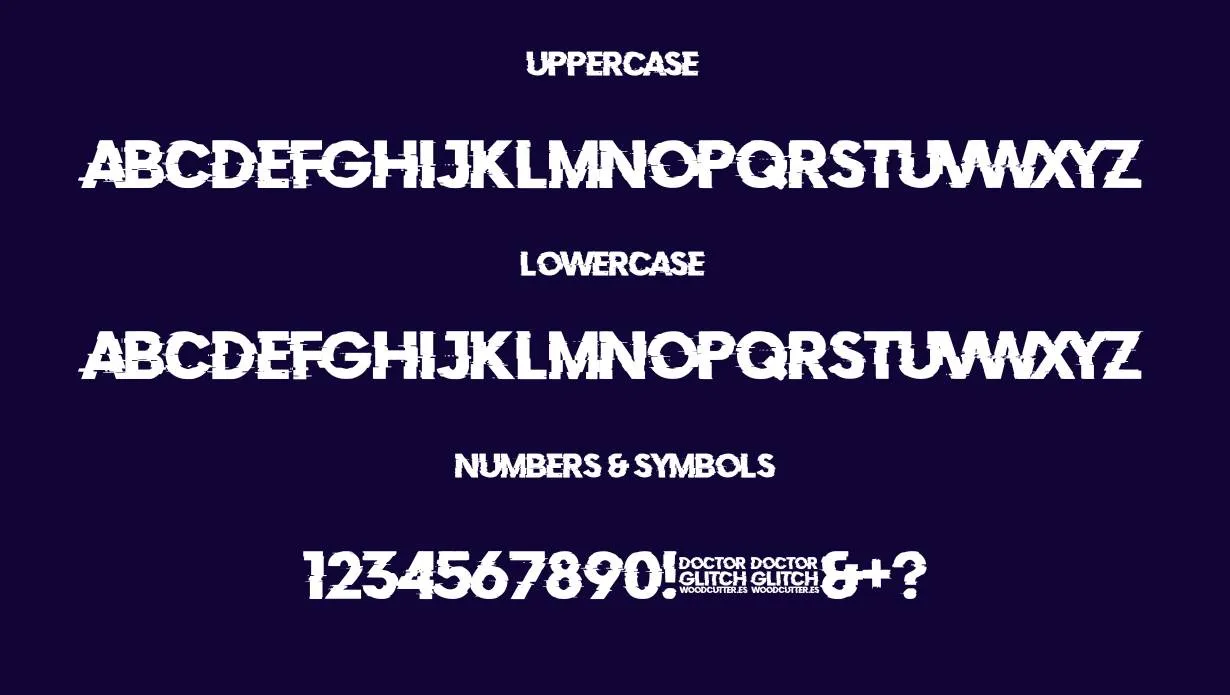
The Doctor Glitch Font is a playful and quirky choice, injecting a dose of fun into your designs. Its glitchy characters bring a sense of creativity and uniqueness.
| Name | Doctor Glitch Font |
| Designer | Woodcutter |